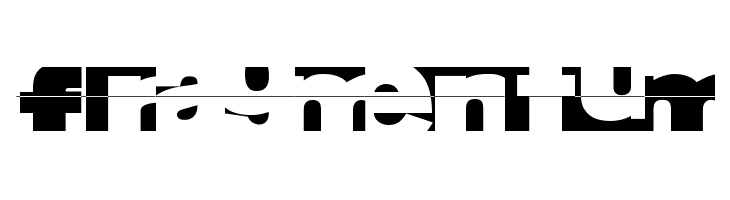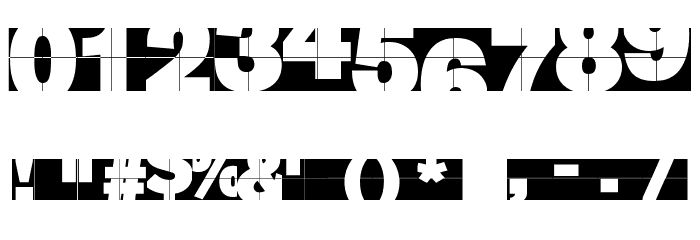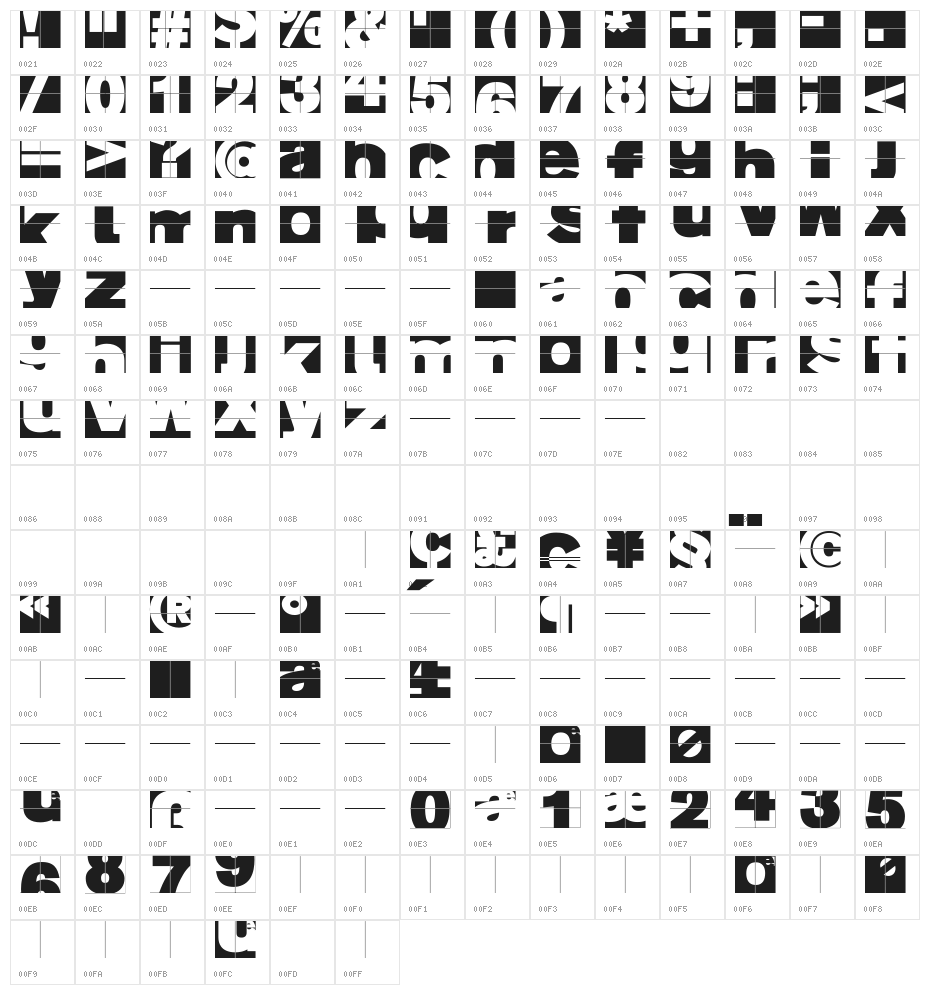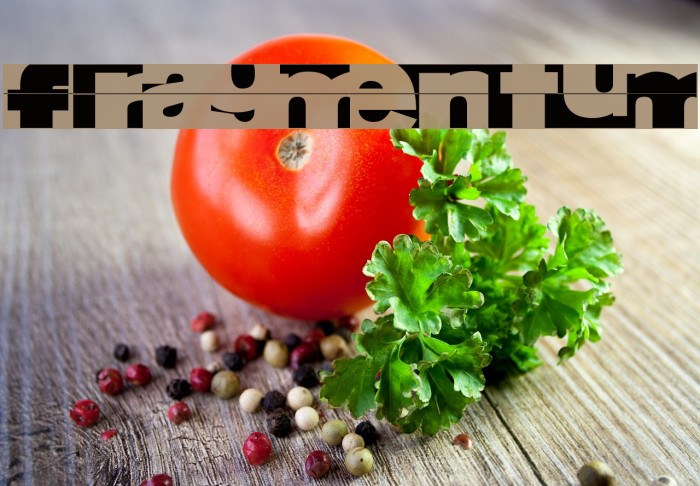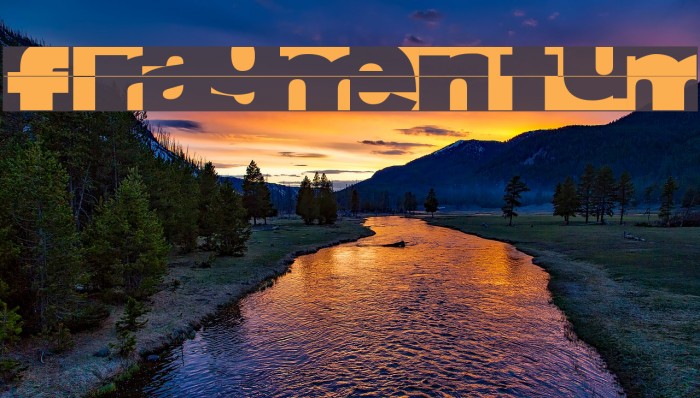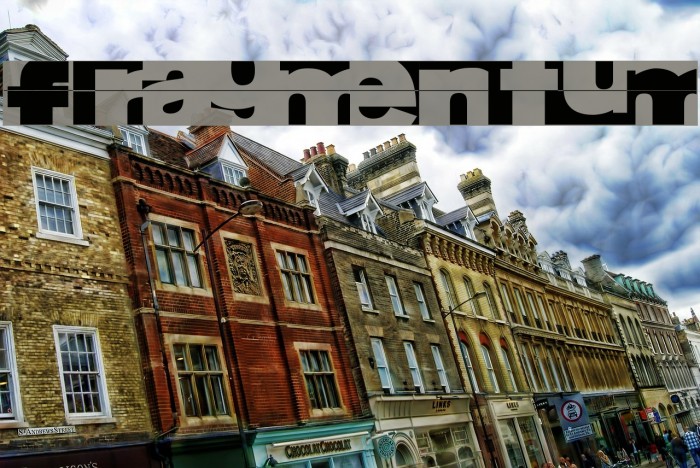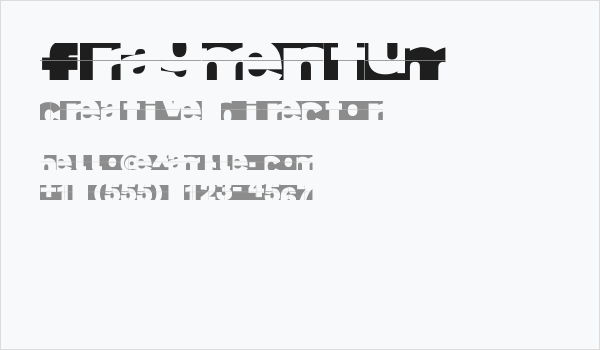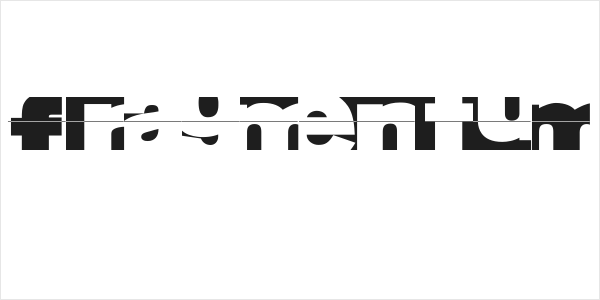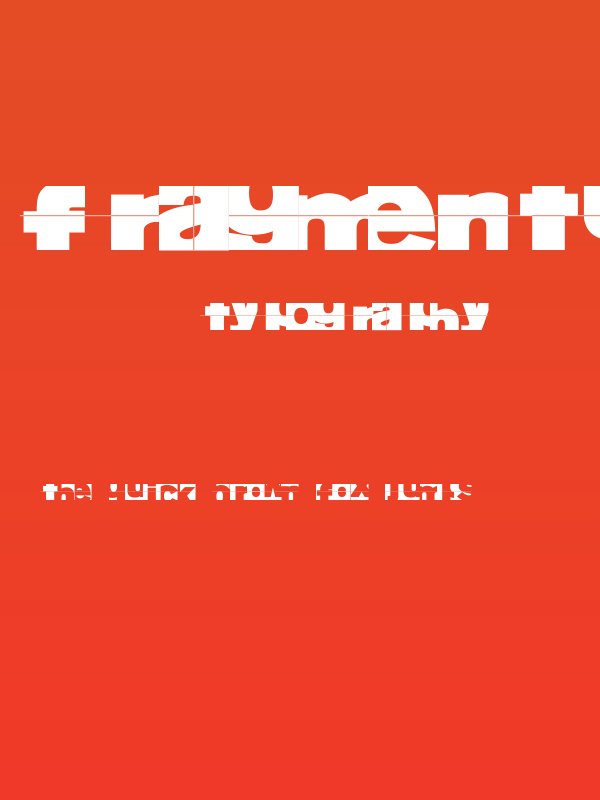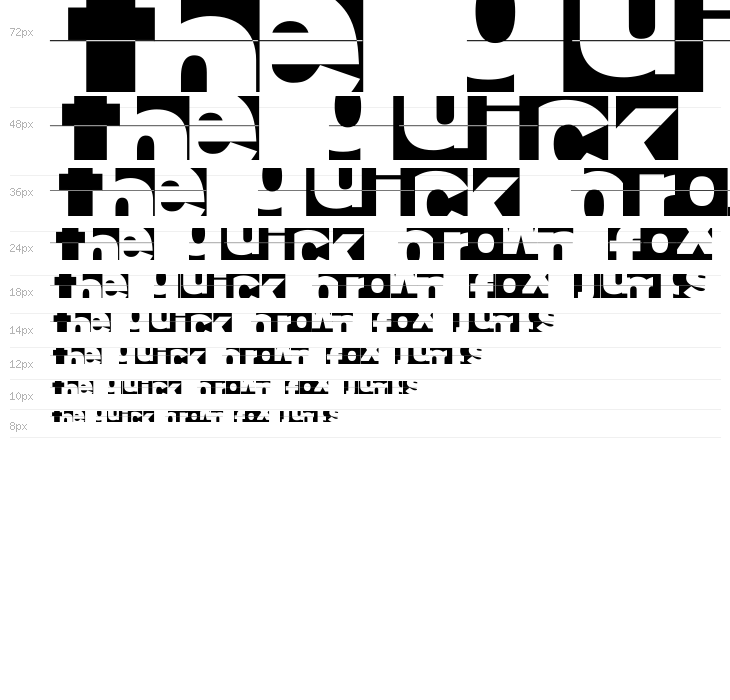
FragmentuM Font
FragmentuM Description
This font features a highly stylized and fragmented design, with each character appearing as if it has been sliced and shifted. The bold, geometric shapes create a striking visual impact, making it ideal for attention-grabbing designs. The uppercase and lowercase letters maintain a consistent style, with sharp angles and a modern aesthetic. Numbers and special characters follow the same fragmented theme, ensuring a cohesive look across all text elements.
| Proposed Projects | Ideal for modern art posters, edgy branding, album covers, and digital artwork where a bold statement is needed. |